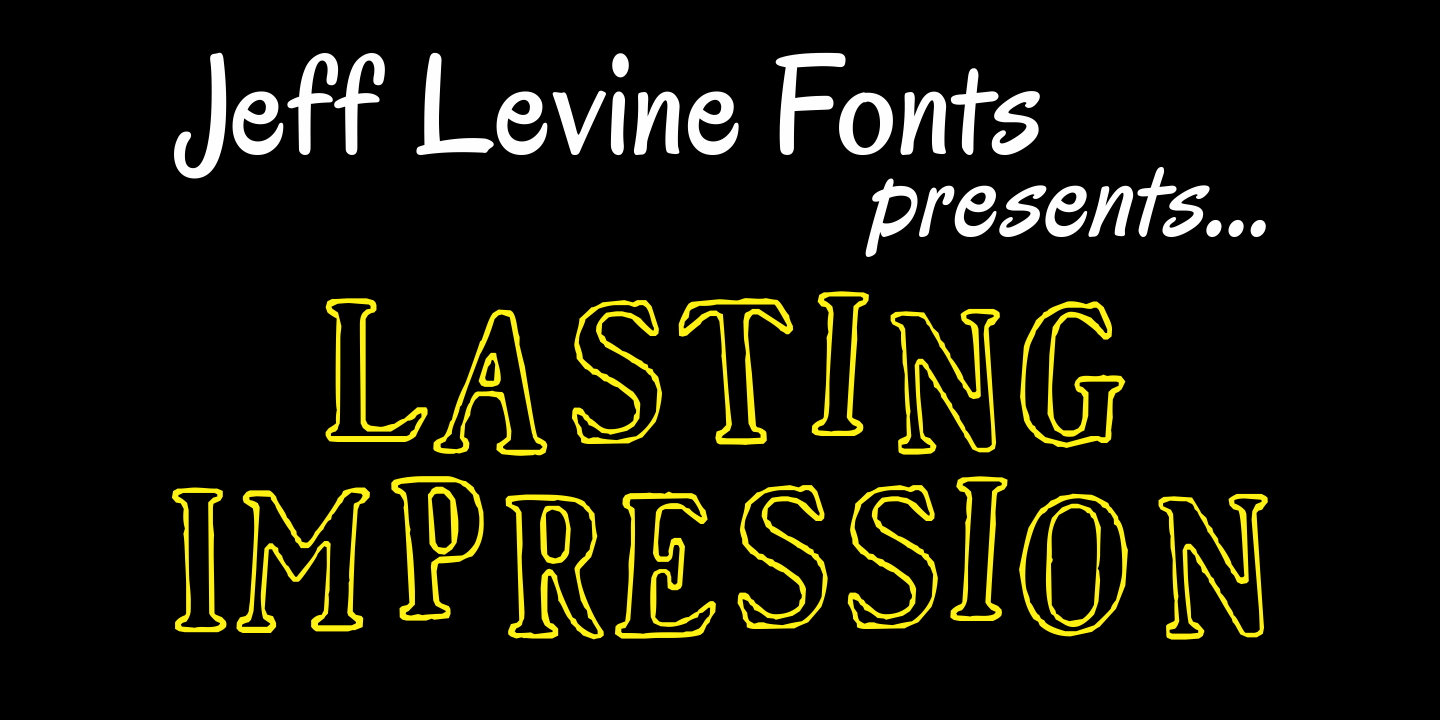
Lasting Impression
Lasting Impression JNL was rendered from scans of a 1930s rubber stamp printing set. At small sizes it has the look of hand-stamped lettering. At larger sizes, the user will see jagged and angular lines giving the font a kind of retro-grunge look. This typeface was the model for the more cleanly-drawn Casual Friday JNL, also by Jeff Levine.
There is a limited character set, and both the spacing and kerning have been intentionally omitted so that the results will more closely resemble the uneven letter spacing of rubber stamps on paper.